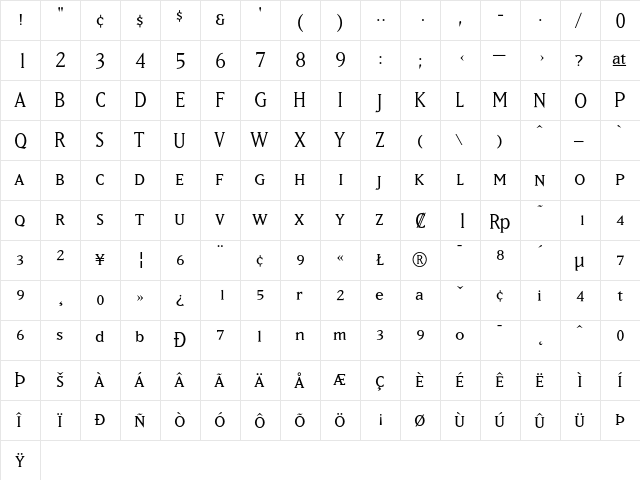
MatrixBookSmallCaps Medium
| Foundry | Copr. Emigre Graphics |
Design Context for MatrixBookSmallCaps Typeface
MatrixBookSmallCaps offers clean, dependable letterforms without strong stylistic allegiance, making it a practical choice for designers who need flexibility.